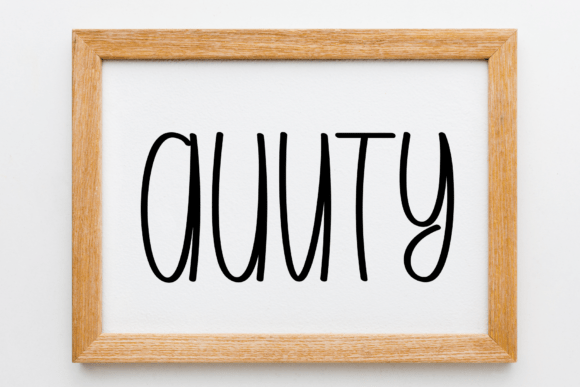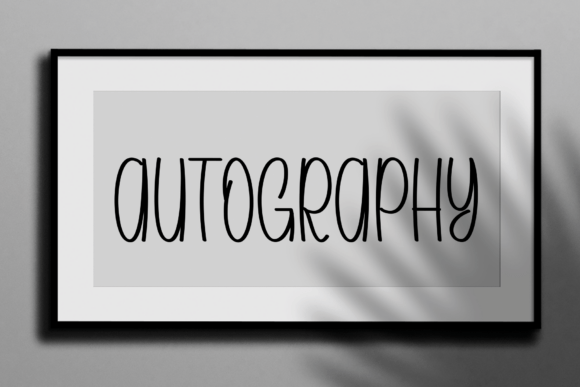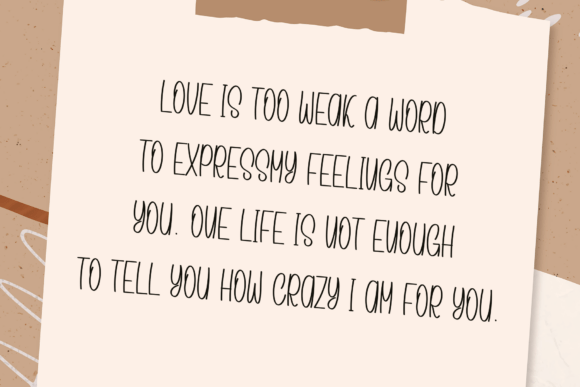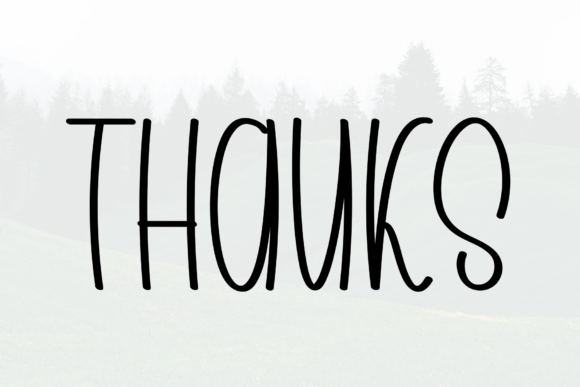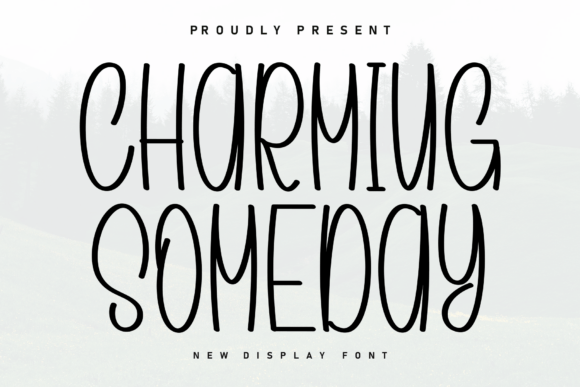
Introducing Charming Someday Font: The Perfect Handwritten Touch for Your Designs
Are you looking for a font that adds a touch of warmth and personality to your design projects? Look no further than Charming Someday, a beautiful handwritten font that exudes a sense of heartfelt perfection. With its smooth strokes and organic lines, this charming font is perfect for creating a relaxed atmosphere in a variety of design applications.
The Characteristics of Charming Someday Font
Charming Someday Font is a carefully crafted handwritten font that boasts a range of characteristics that make it perfect for designers and crafters. Some of its key features include:
- Smooth Strokes: The font features smooth, flowing strokes that give it a natural and effortless feel.
- Organic Lines: The organic lines of Charming Someday Font add a touch of whimsy and charm to any design.
- Heartfelt Perfection: The font’s unique character and personality make it perfect for designs that require a personal touch.
Charming Someday Font is a versatile font that can be used in a wide range of design projects, including:
- Branding: Use Charming Someday Font to add a personal touch to your brand’s identity and create a lasting impression on your customers.
- Invitations: Create beautiful and unique invitations for special occasions, such as weddings, birthdays, and baby showers.
- Social Media Graphics: Use Charming Someday Font to create eye-catching social media graphics that stand out from the crowd.
Why Choose Charming Someday Font?
With so many fonts to choose from, why should you choose Charming Someday Font for your design projects? Here are just a few reasons:
- Unique Character: Charming Someday Font has a unique character and personality that sets it apart from other fonts.
- Customizable: Charming Someday Font can be customized to fit your design needs, making it perfect for a wide range of applications.
Tips for Using Charming Someday Font
Here are a few tips for using Charming Someday Font in your design projects:
- Pair with Other Fonts: Pair Charming Someday Font with other fonts to create a unique and visually appealing design.
- Use in Headlines: Use Charming Someday Font in headlines to add a touch of personality and whimsy to your design.
| Feature | Benefit |
| Smooth Strokes | Natural and effortless feel |
| Organic Lines | Adds a touch of whimsy and charm |
| Heartfelt Perfection | Perfect for designs that require a personal touch |
| Easy to Read | Perfect for designs that require a clear and concise message |
| Customizable | Perfect for a wide range of applications |